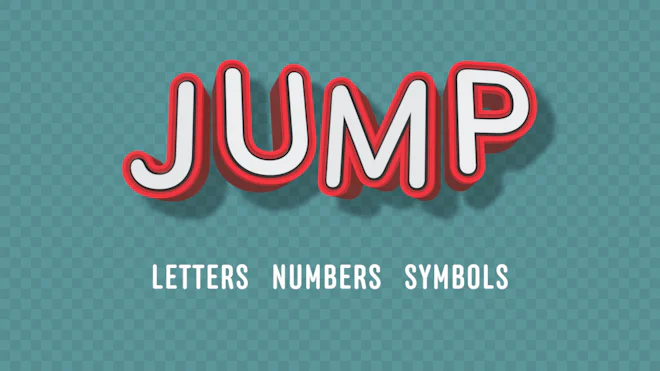
This stock motion graphics video pack includes 48 clips of red and white jumping letters, numbers and symbols, each on a transparent alpha channel in a seamless loop.